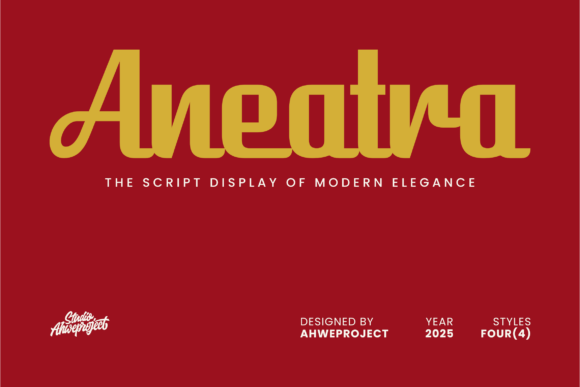
Aneatra Font: A Modern Script Display Font for Elegant Designs
In the world of typography, a font can make or break a design. When it comes to creating visually stunning and effective designs, the right font is essential. Introducing Aneatra, a modern script display font that blends bold style with timeless elegance. Designed for logos, branding, posters, packaging, and editorial designs, Aneatra offers a unique balance of smooth curves and sharp edges that make every word stand out.
What is Aneatra Font?
Aneatra is a modern script display font that is perfect for creating eye-catching headlines, stylish social media graphics, and sophisticated design projects. With its four versatile styles, this font is ideal for designers who want to add a touch of modern elegance to their typography. Whether you’re working on a contemporary brand identity or a vintage-inspired layout, Aneatra brings a level of sophistication and refinement that is hard to match.
Key Features of Aneatra Font
- Unique Balance of Curves and Edges: Aneatra’s design combines smooth curves with sharp edges, creating a distinctive look that sets it apart from other fonts.
- Four Versatile Styles: The font comes in four different styles, offering flexibility for various design projects and applications.
- Modern and Elegant: Aneatra’s modern script style brings a touch of elegance and sophistication to any design, making it perfect for high-end branding and editorial projects.
- Highly Legible: Despite its elegant and bold appearance, Aneatra remains highly legible, ensuring that your message is clear and impactful.
Use Cases for Aneatra Font
Aneatra is a versatile font that can be used in a variety of design projects. Here are some of the best use cases for this modern script display font:
- Logos and Branding: Aneatra’s bold and elegant style makes it perfect for logos and branding projects. Its unique design ensures that your brand stands out and leaves a lasting impression.
- Posters and Flyers: Create eye-catching posters and flyers with Aneatra’s striking appearance. The font’s modern style is sure to grab attention and make your message memorable.
- Packaging Design: Add a touch of sophistication to your packaging with Aneatra. Its elegant design works well for product labels, packaging boxes, and more.
- Editorial Design: Use Aneatra for editorial projects such as magazines, newspapers, and digital publications. Its readability and style make it ideal for headlines and article titles.
- Social Media Graphics: Create stylish social media graphics with Aneatra. Its modern and elegant appearance ensures that your social media posts stand out and engage your audience.
Why Choose Aneatra Font?
With so many fonts available, why should you choose Aneatra for your design projects? Here are some compelling reasons:
- Unique Design: Aneatra’s blend of smooth curves and sharp edges creates a unique and distinctive look that sets it apart from other fonts.
- Versatility: The font comes in four versatile styles, making it suitable for a wide range of design projects and applications.
- Elegance and Sophistication: Aneatra brings a touch of modern elegance and sophistication to any design, making it perfect for high-end branding and editorial projects.
- High Legibility: Despite its bold and elegant appearance, Aneatra remains highly legible, ensuring that your message is clear and impactful.
Tips for Using Aneatra Font Effectively
To get the most out of Aneatra, here are some tips for using the font effectively in your designs:
- Pair with Complementary Fonts: Pair Aneatra with complementary fonts to create a harmonious and balanced design. Consider using sans-serif fonts for body text to contrast with Aneatra’s script style.
- Use in Headlines and Titles: Take advantage of Aneatra’s bold and elegant appearance by using it in headlines and titles. This will help grab attention and make your content stand out.
- Experiment with Colors: Don’t be afraid to experiment with different colors to find the perfect match for your design. Aneatra works well with both bold and subtle color schemes.
- Pay Attention to Spacing: Ensure that there is adequate spacing between letters and lines to maintain readability and make your text easy to read.
- Test Different Sizes: Test Aneatra at different sizes to see how it looks in various contexts. This will help you find the optimal size for your specific design.
Aneatra is a modern script display font that offers a unique blend of bold style and timeless elegance. With its four versatile styles, this font is perfect for creating eye-catching headlines, stylish social media graphics, and sophisticated design projects. Whether you’re working on a contemporary brand identity or a vintage-inspired layout, Aneatra brings a touch of modern elegance to your typography. Its unique design, versatility, and high legibility make it an excellent choice for designers looking to elevate their work.
- Can I use Aneatra Font for social media graphics?: Absolutely! Aneatra is ideal for creating stylish social media graphics. Its modern and elegant appearance ensures that your social media posts stand out and engage your audience.
- Is Aneatra Font easy to read?: Despite its bold and elegant appearance, Aneatra remains highly legible, ensuring that your message is clear and impactful.